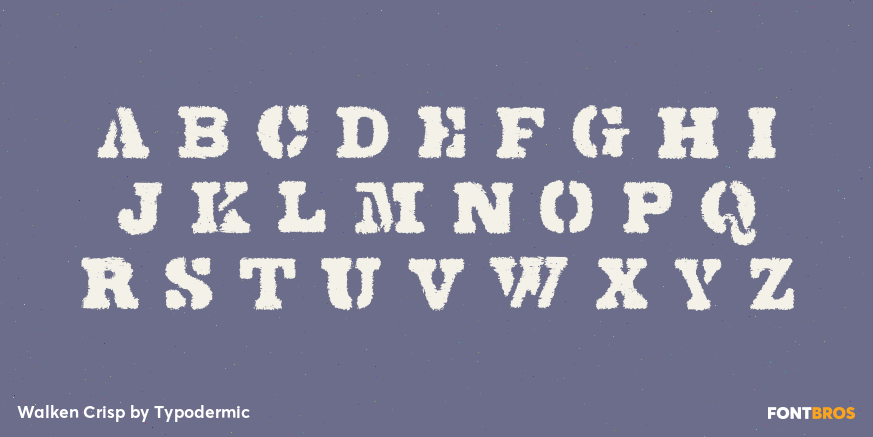
Walken Crisp
Buy NowWalken Crisp keeps the family’s irregular mixture of broken and solid slab-serif forms, then roughens their contours with a consistent layer of abrasion. Small chips and granular edges make the lettering feel printed, scraped, or exposed to hard use, but the main strokes remain full enough for names and short headings to hold together clearly. It occupies the useful middle ground between the sharp Clean style and the heavily damaged Hard treatment.
Use Walken Crisp for demolition and recycling campaigns, equipment decals, workwear graphics, contractor packaging, yard signs, off-road accessories, and game environments that need visible wear without extreme dropout. Give it enough size for the rough perimeter to register, especially on textured backgrounds. Pair it with Walken Clean for practical supporting levels, or move to Hard when the surface damage itself should become the dominant visual feature.